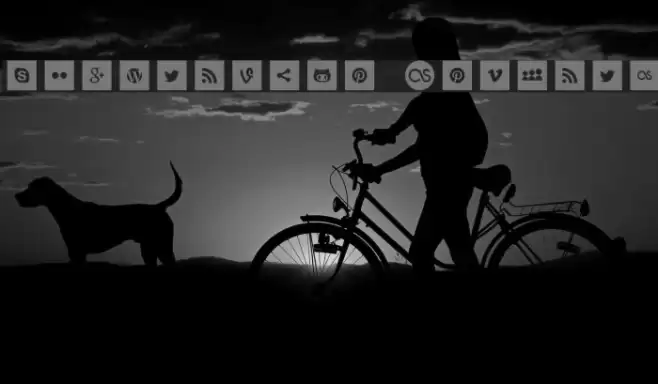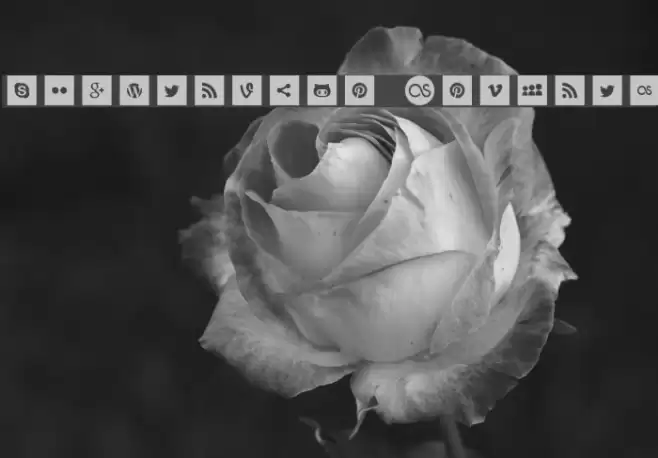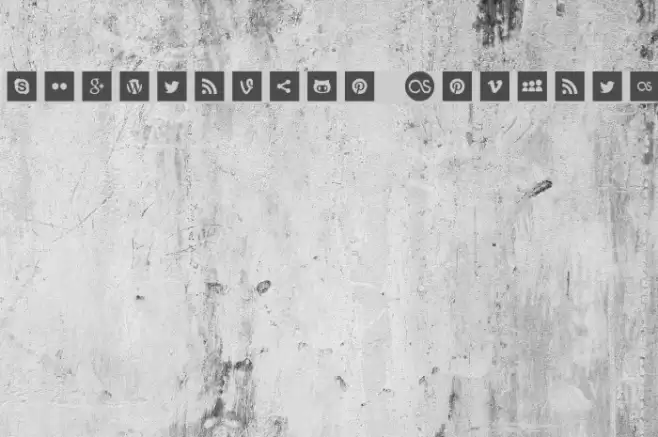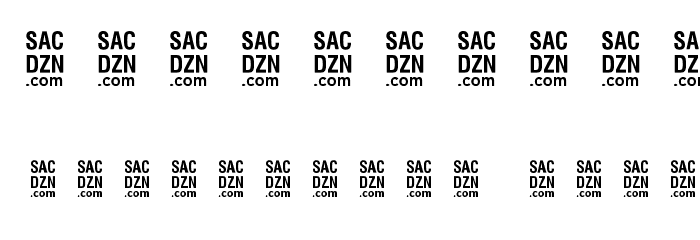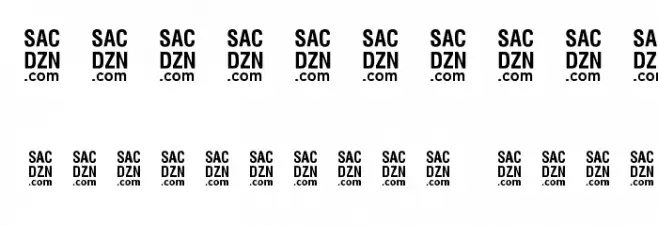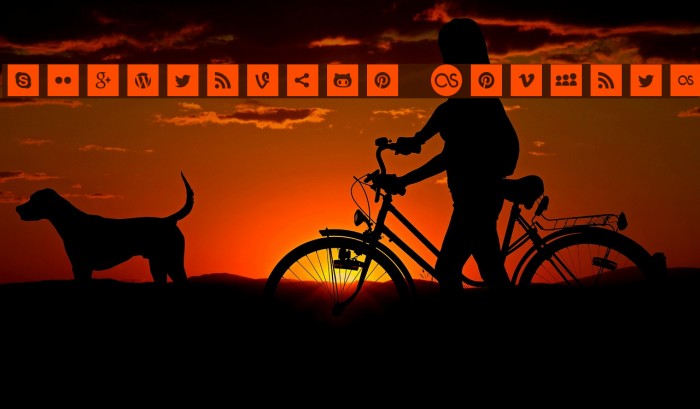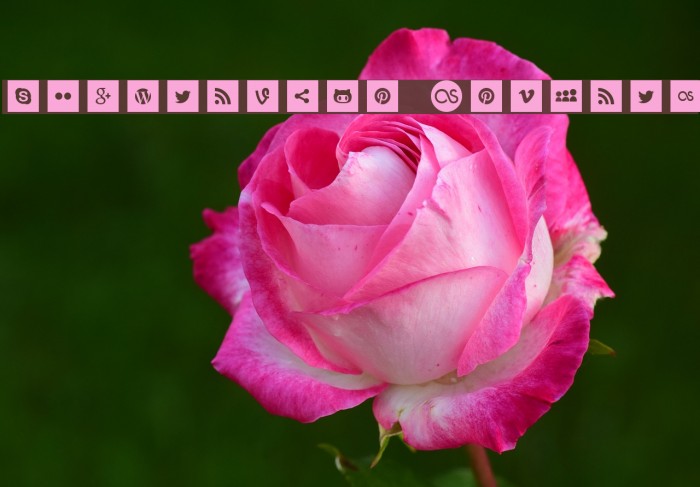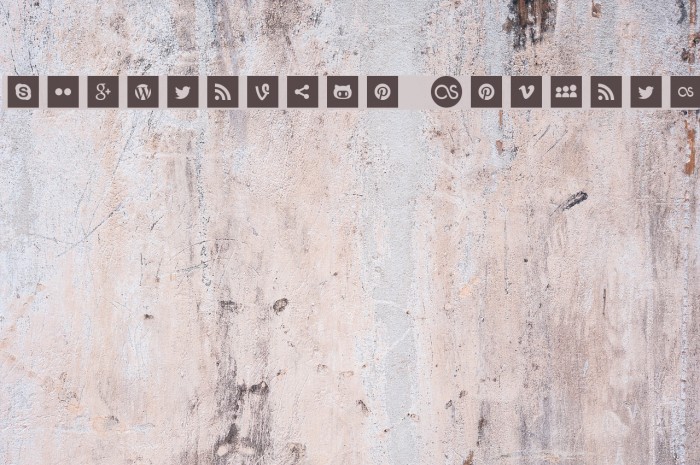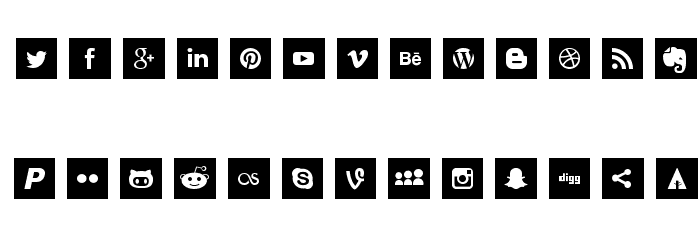
A collection of bold, geometric social media and web service icons presented in both circular and square backgrounds, accompanied by a simple, uppercase sans-serif text style for branding or watermark purposes.
Bold, geometric social icons with uppercase sans-serif text from Dingbats fonts.
- Proposed Projects: Websites, app interfaces, social media branding, presentations, digital portfolios.
- Overall Style: Modern, Minimalist
- Use Case: Icons, Logos, UI elements, Watermarks